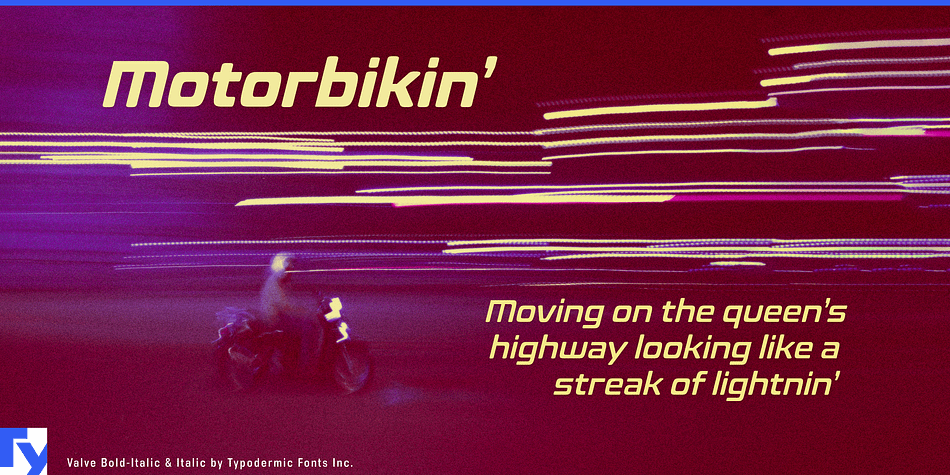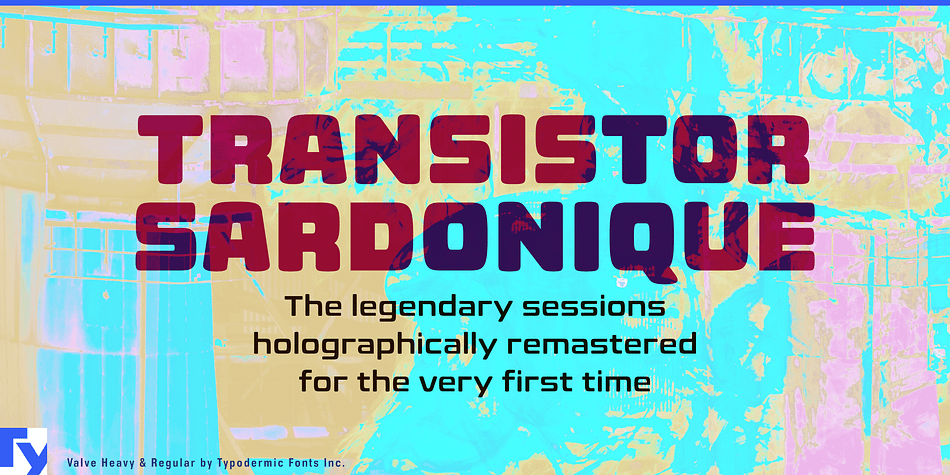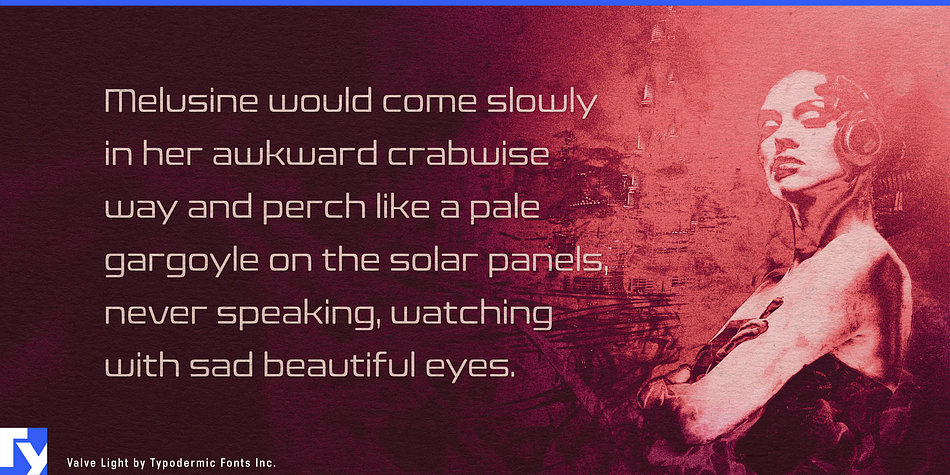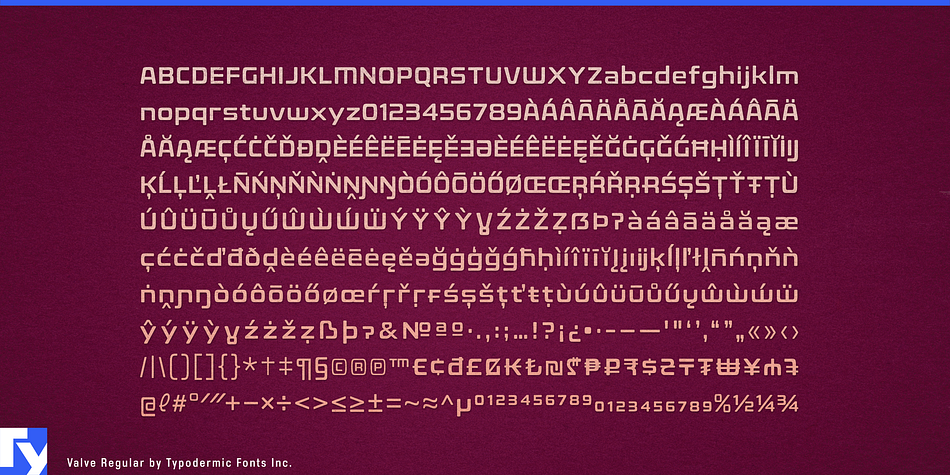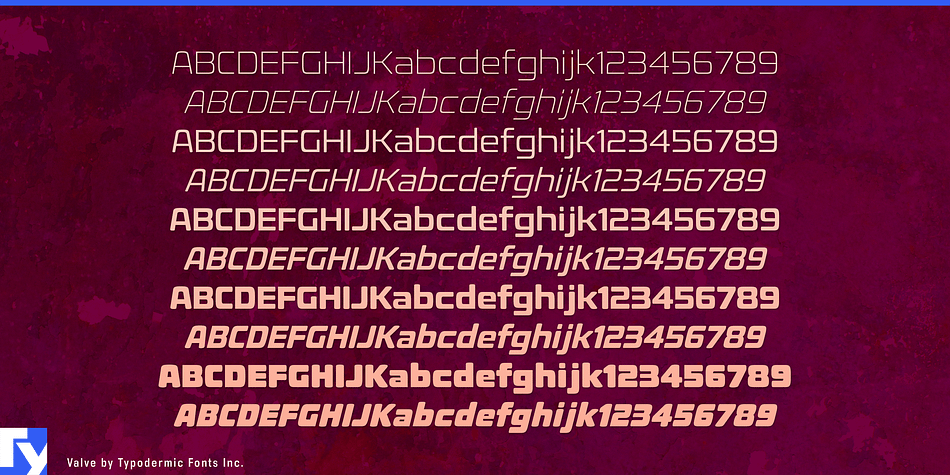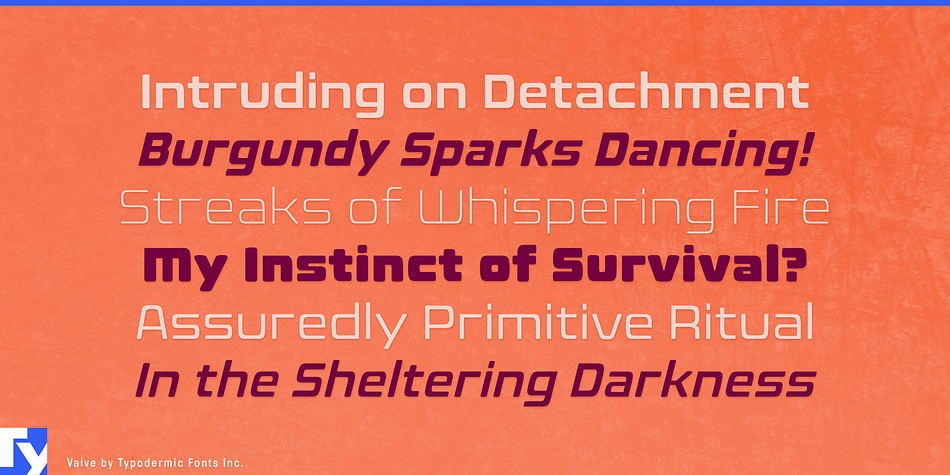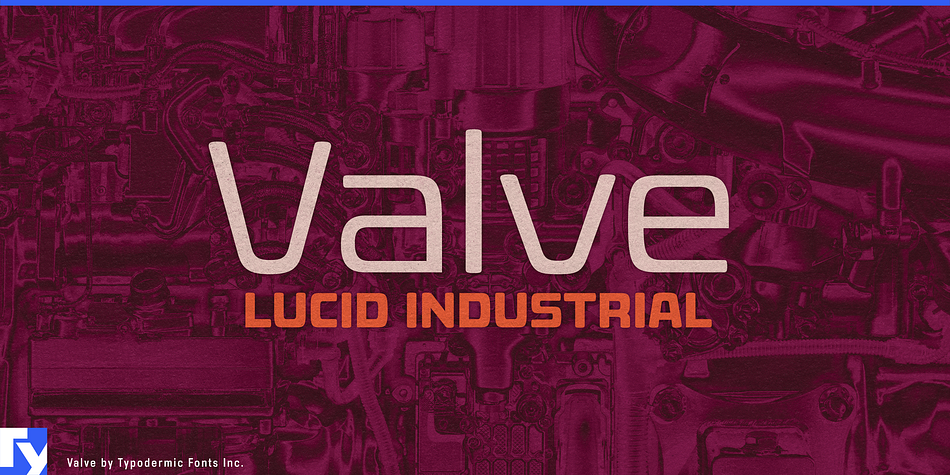
Designed by Ray Larabie, Valve is a display sans and sans serif font family. This typeface has ten styles and was published by Typodermic Fonts Inc.
Valve is an industrial typeface with superelliptical letterforms and pragmatic stroke logic. Emotionless, android-like forms evoke plastics, pharmaceuticals, electronics, and alternative energy. Many ultramodern typefaces conjure tongue-in-cheek references to a retro futurism, but Valve is purely synthetic—built solely from artificial elements with no specific structural source. Most Latin-based languages are supported. OpenType fractions, numeric ordinals and lots of currency symbols are included. Valve is available in five weights: Extra-Light, Light, Regular, Bold and Heavy as well as a set of sleek obliques.